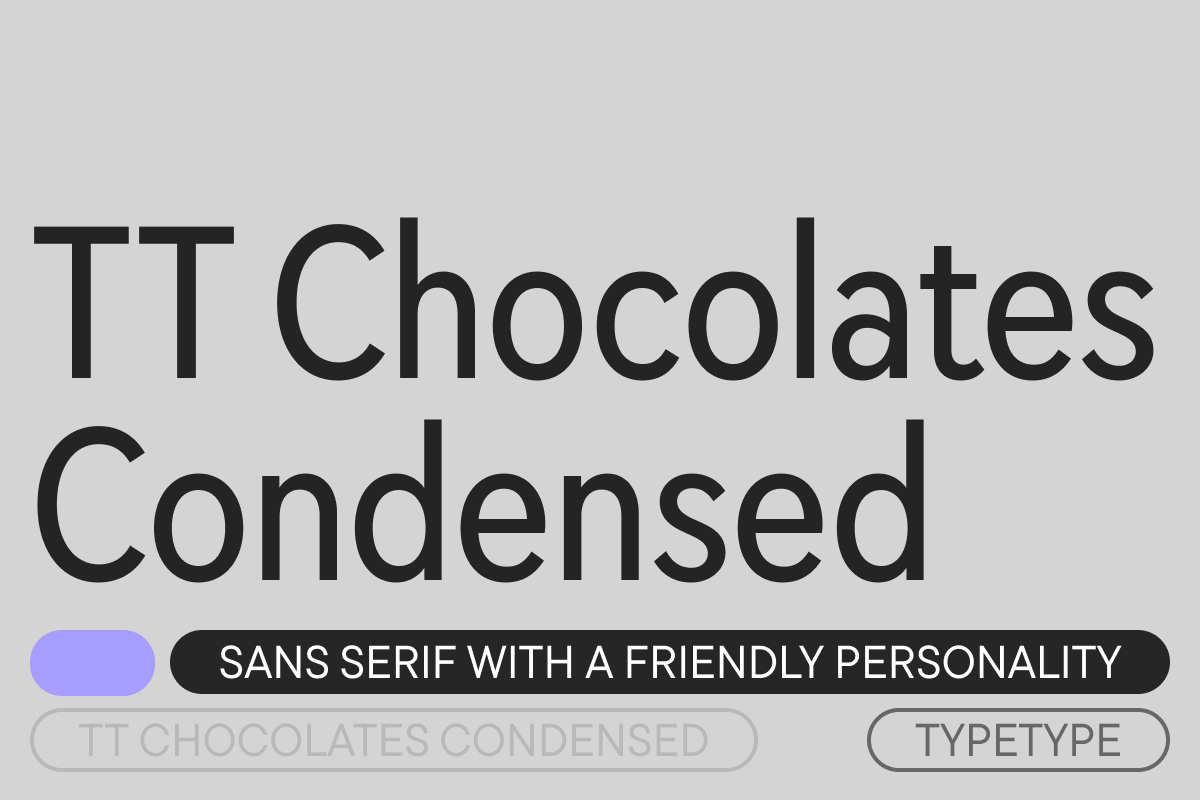
TT Chocolates Condensed Light
TT Chocolates is an elegant Humanist sans serif with a dense typesetting and well-balanced proportions similar to the classical tradition. This font’s nice and friendly nature makes it seem like something close and familiar. It has earned a reputation among designers as the perfect font for confectionery, but the application range of the TypeType’s “sweetest” typeface goes well beyond that! TT Chocolates is a good match for branding and layouts. Elevate your design’s appeal with TT Chocolates!